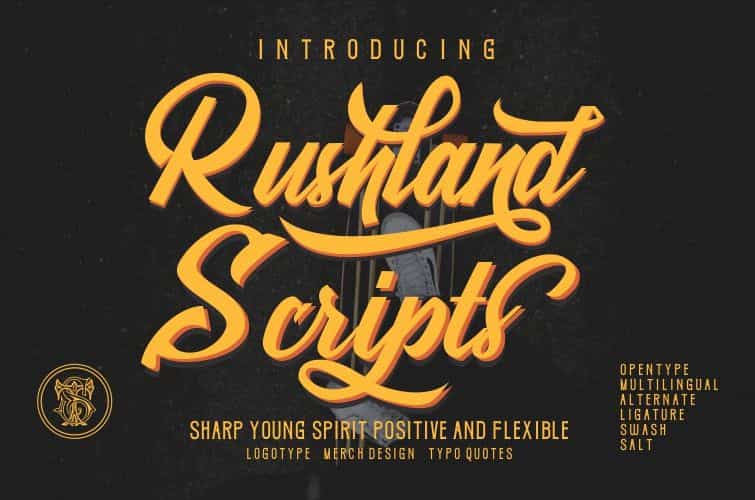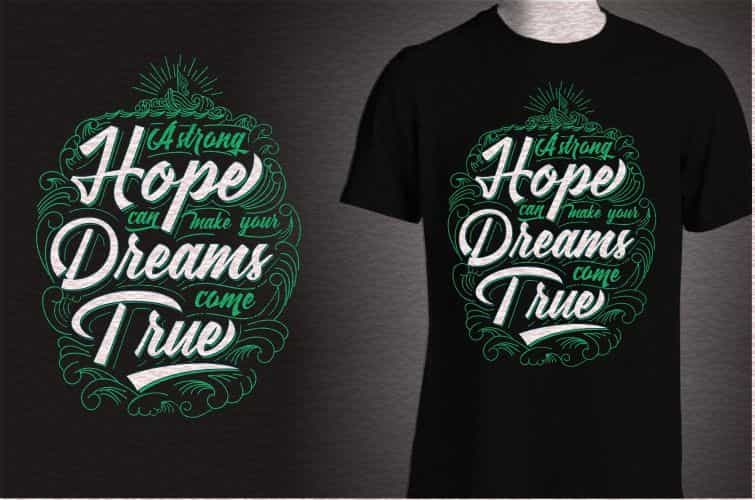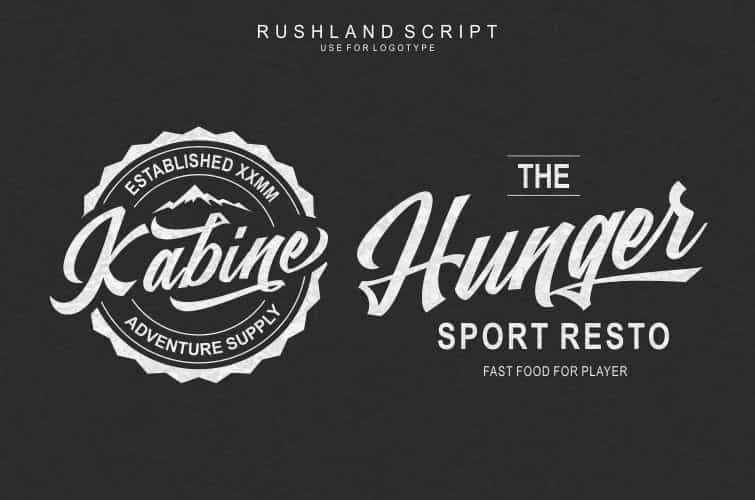
Rushland Script Sporty Font is a font designed to make strong, sharp and flexible young characters with smooth and varied swashes, Use it for any design project you want to take the next level!